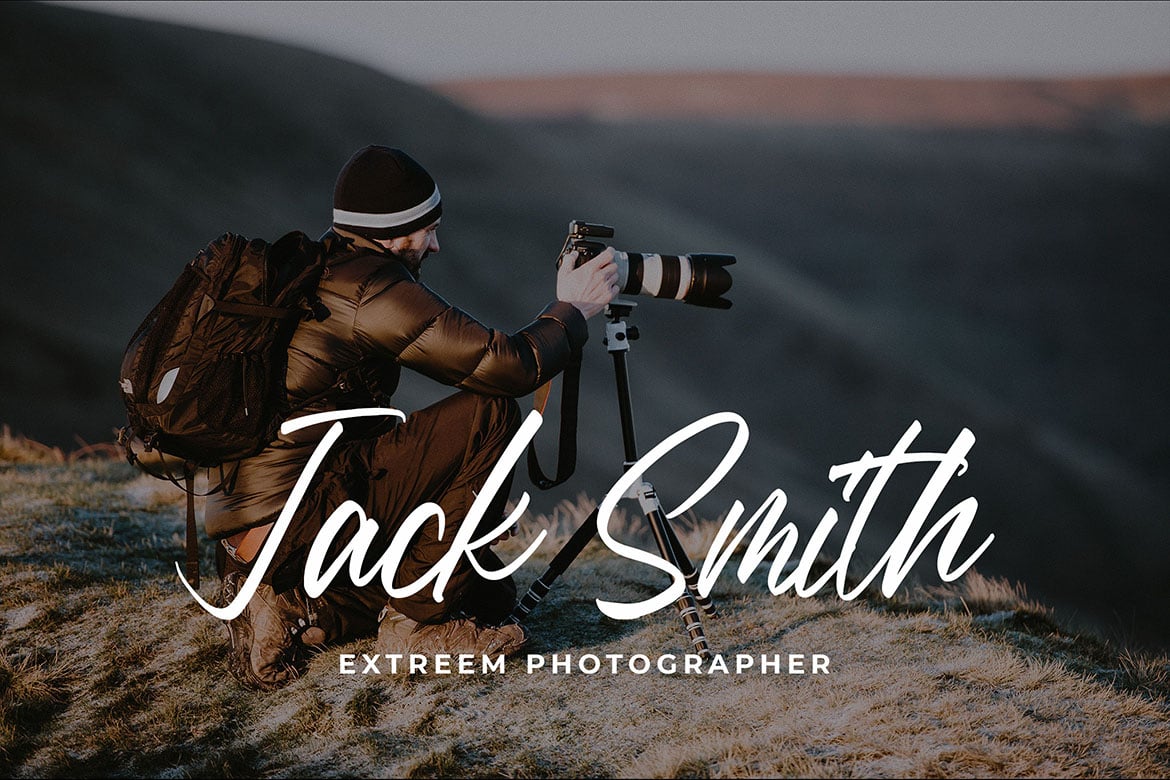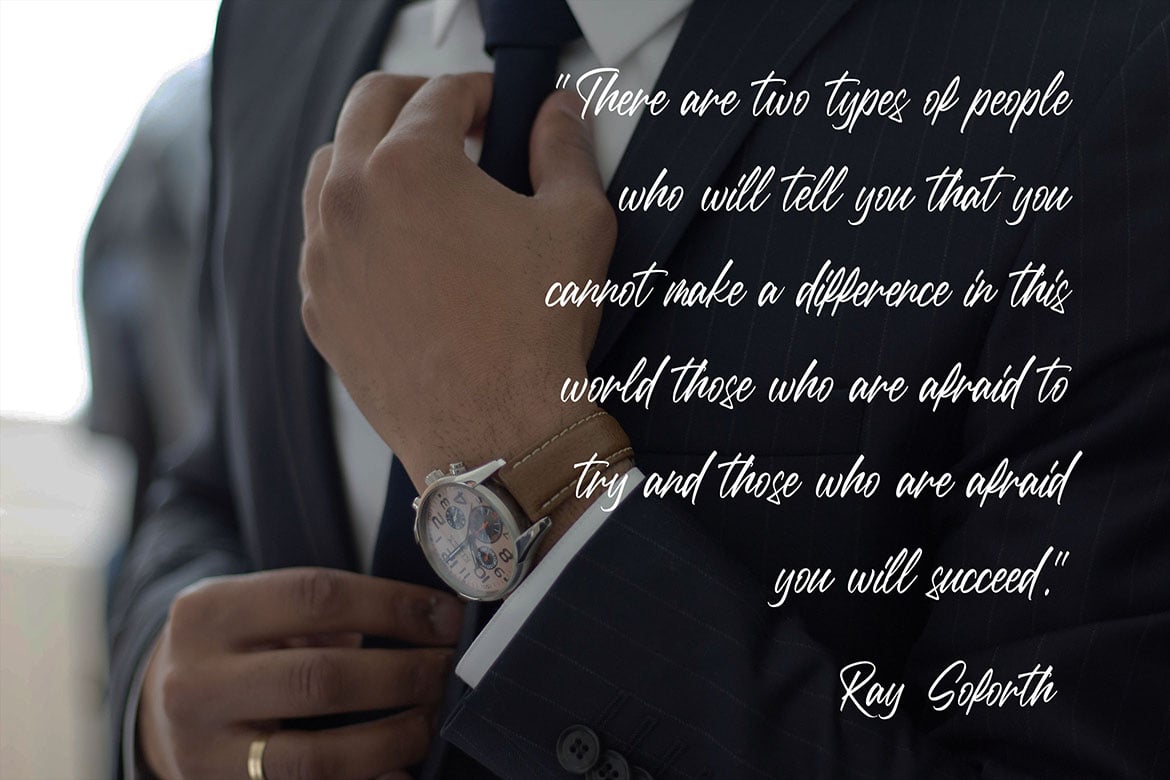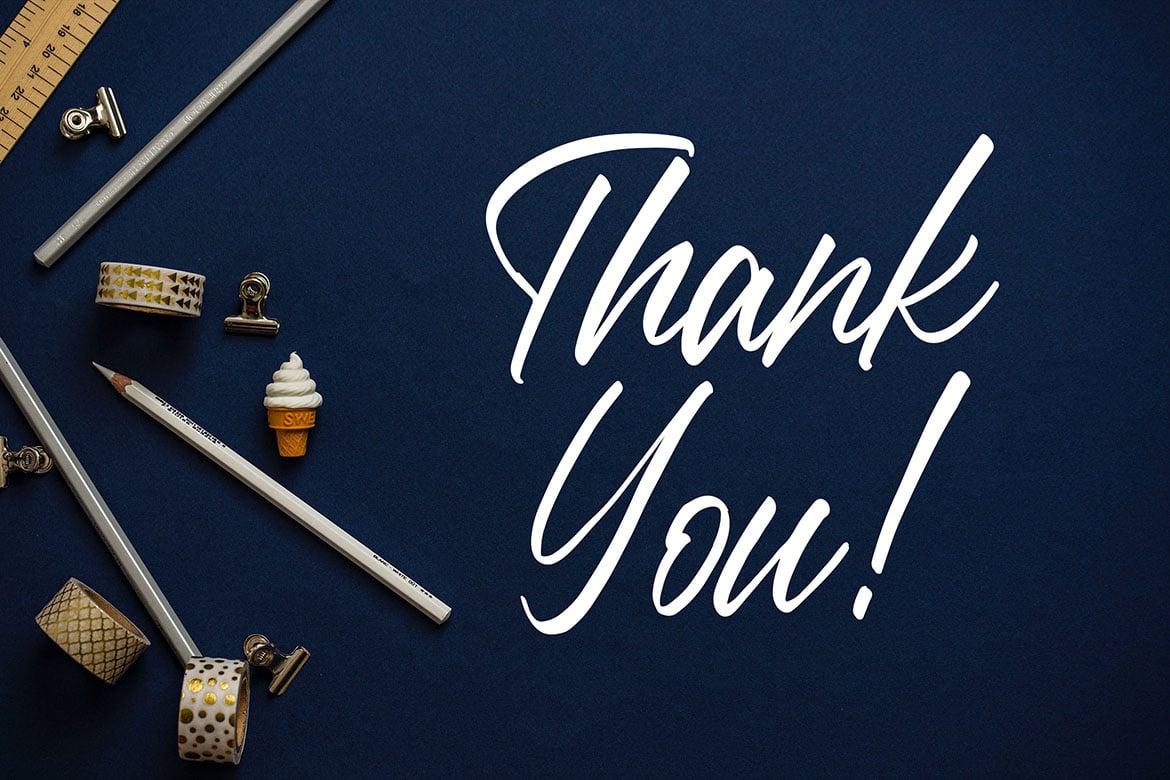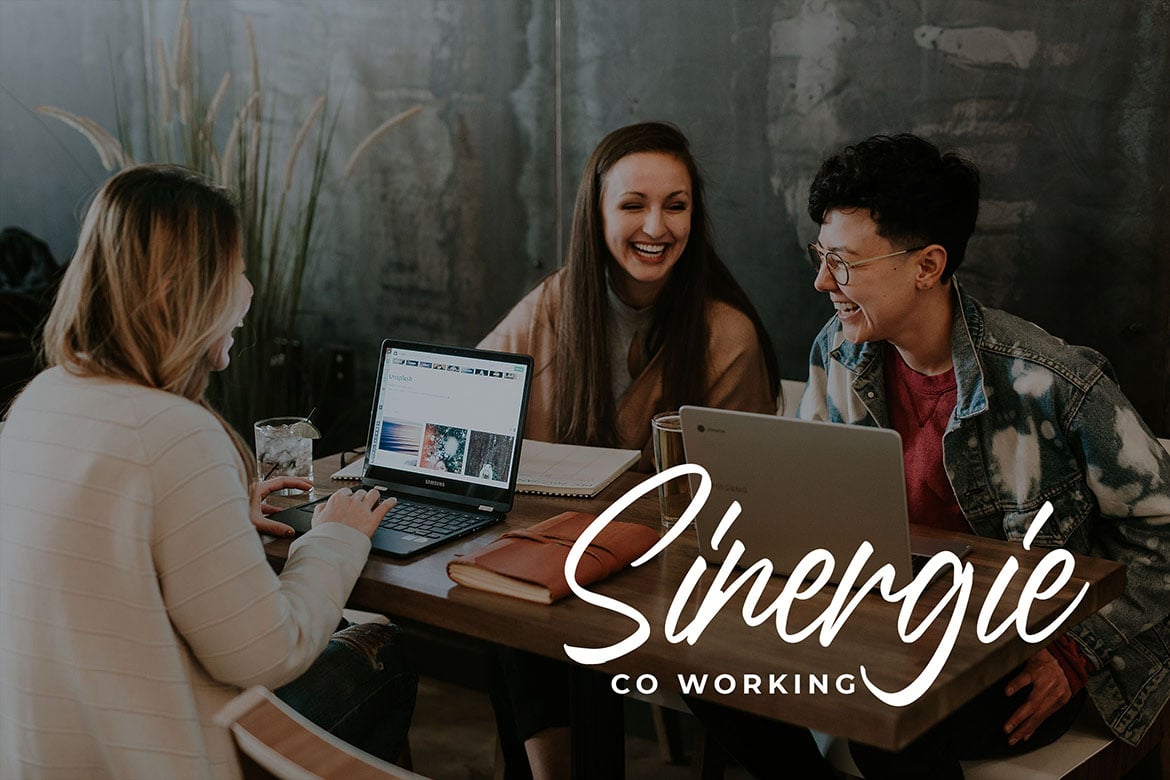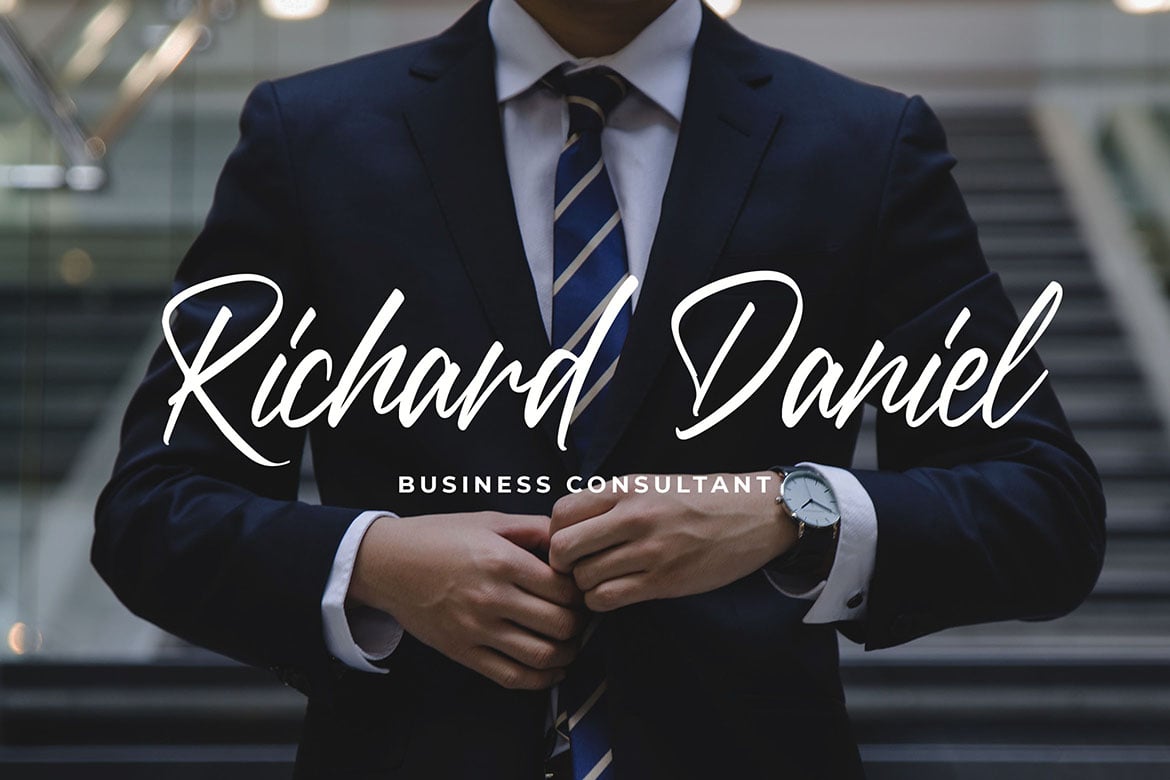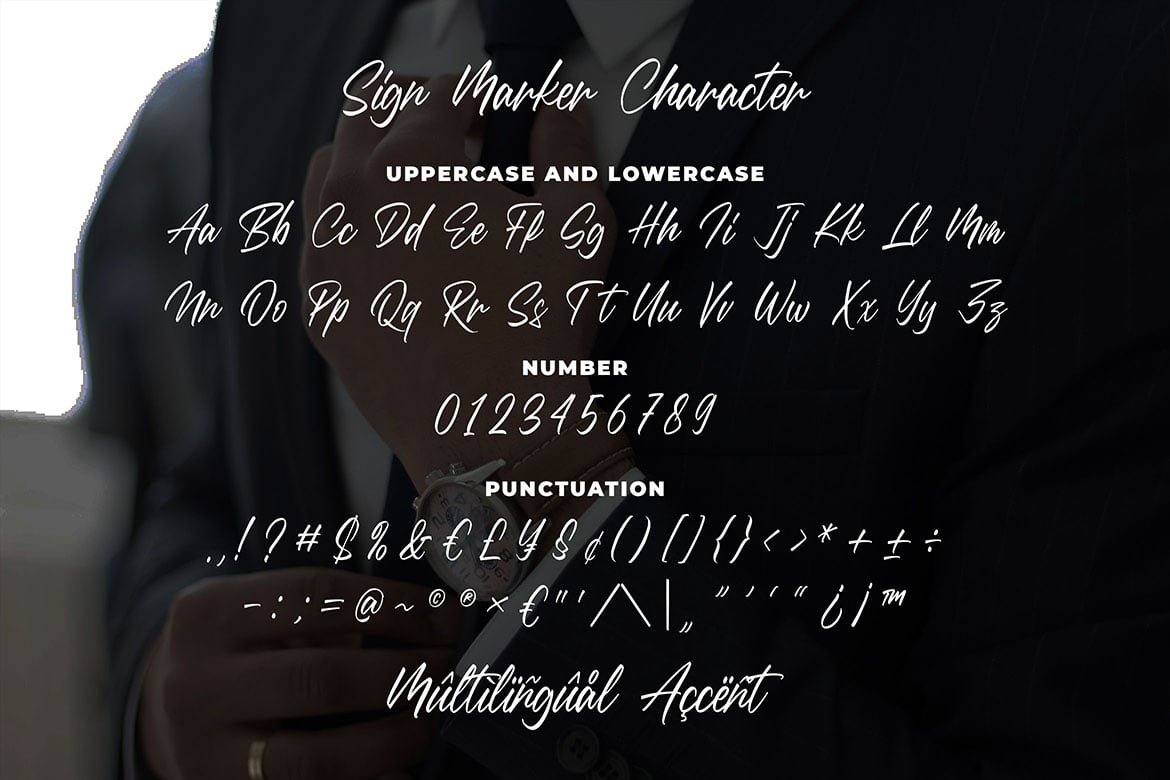
Sign Marker – Classy Signature Font
Introducing of our new product the name Sign Marker Classy Signature Font. Sign Marker made with Brush pen into digital this font is a fun theme very good for signature, poster, branding, logotype etc
MULTILINGUAL ACCENT :
ŽžŠŒšŸÀÁÂÃÄÅÆÇÈÉÊËÌÍÎÏÐŁÑÒÓÔÕÖØÙÚÛÜÝßàáâãäåæçèéêëìíîïłñòóôõöøùúûüýÿ